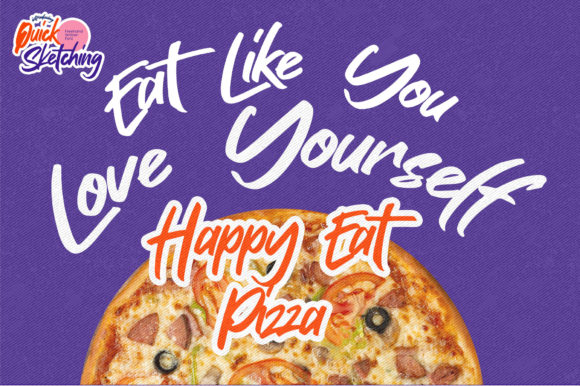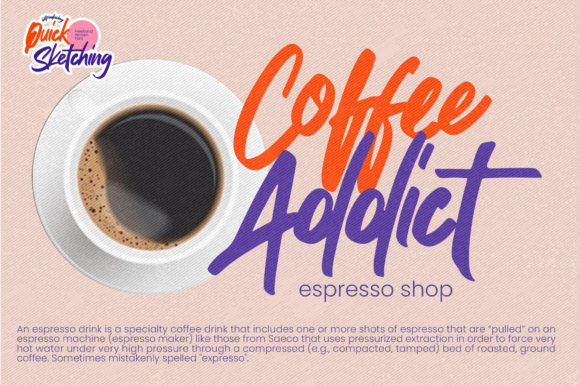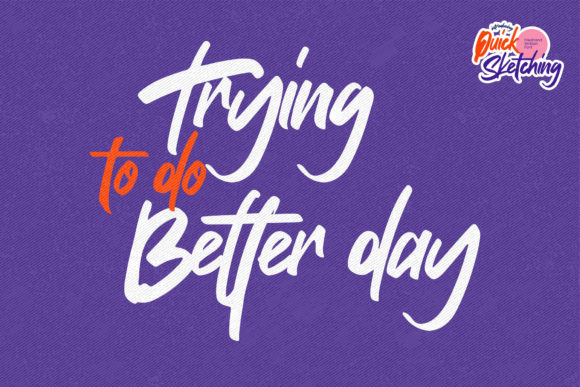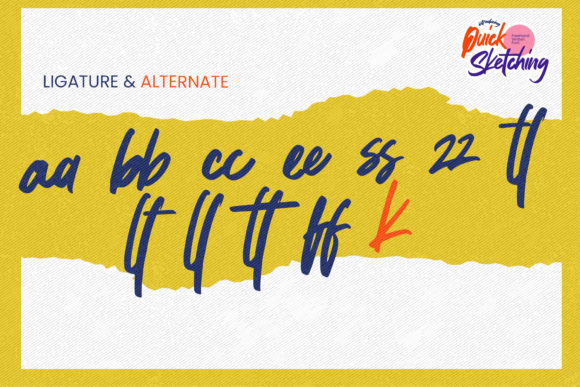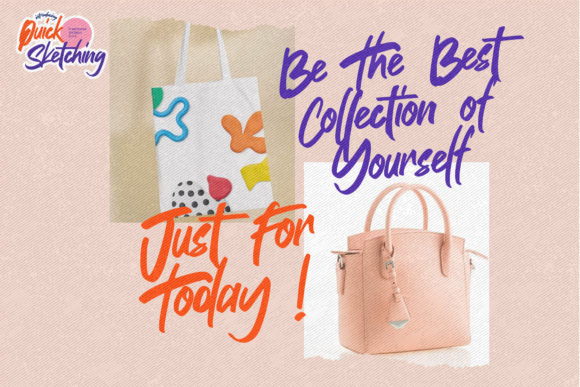
Quick Sketching Font
About Quick Sketching Font
Quick Sketching is a cool, paint brushed and urban styled handwritten font. This font is suitable for designs such as t-shirts, sportswear, logos, advertisements, clothing, and more.